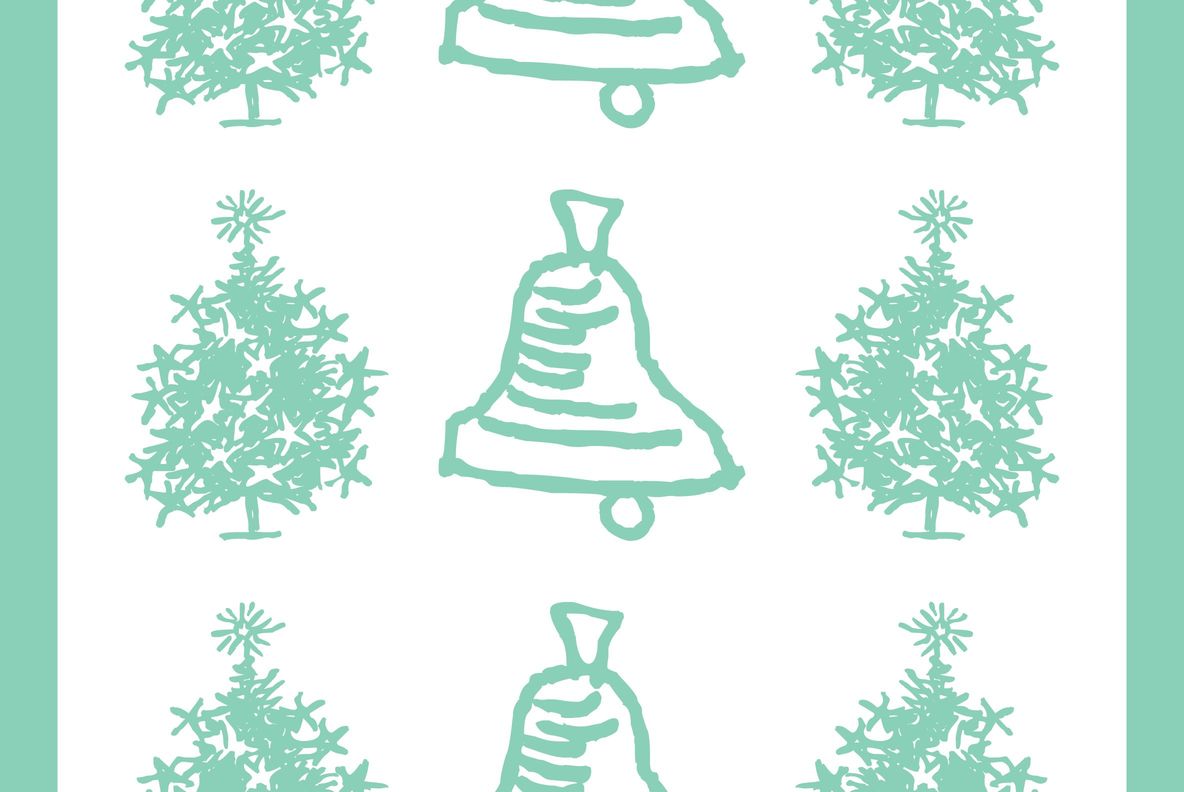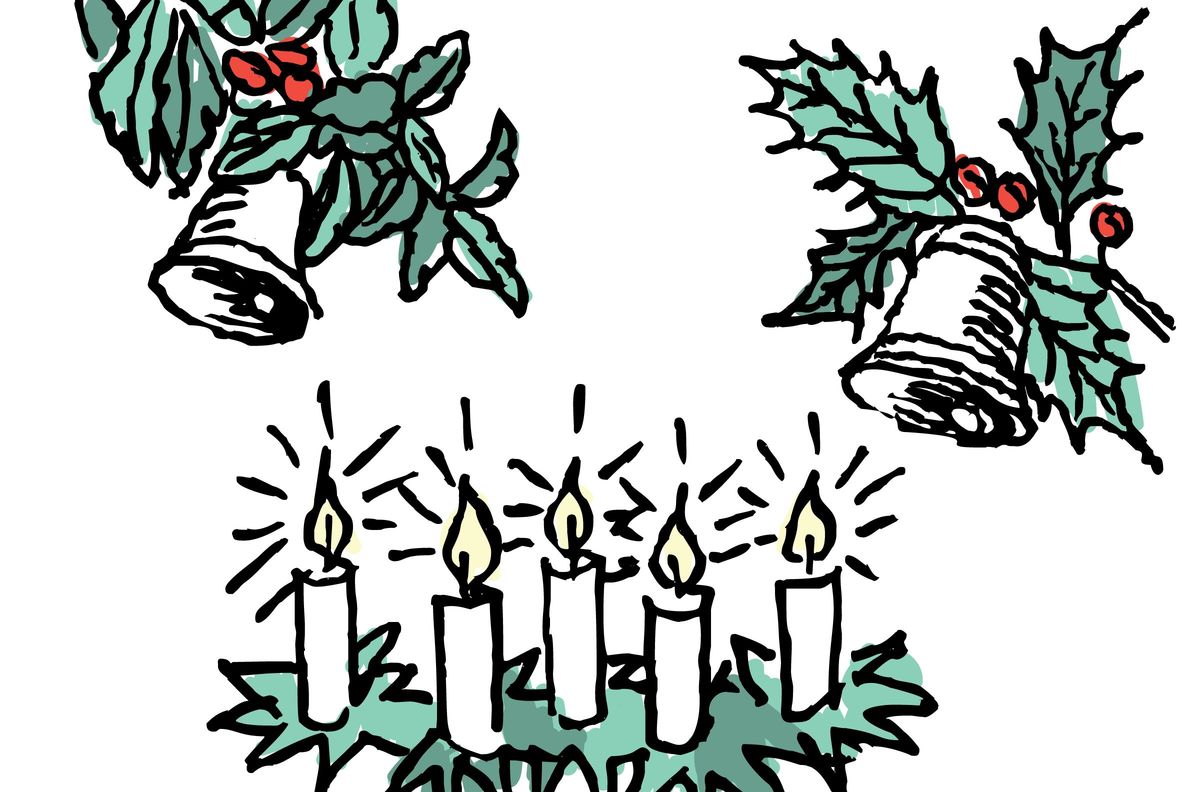
Jingle Doodles Font
Jingle Doodles
"Jingle Doodles" is for those christmas occasions, and for those alone! I sell them very cheap because it's christmas time. Your red-nose-reindeer-type-designer Gert Wiescher Ho-Ho-Ho!